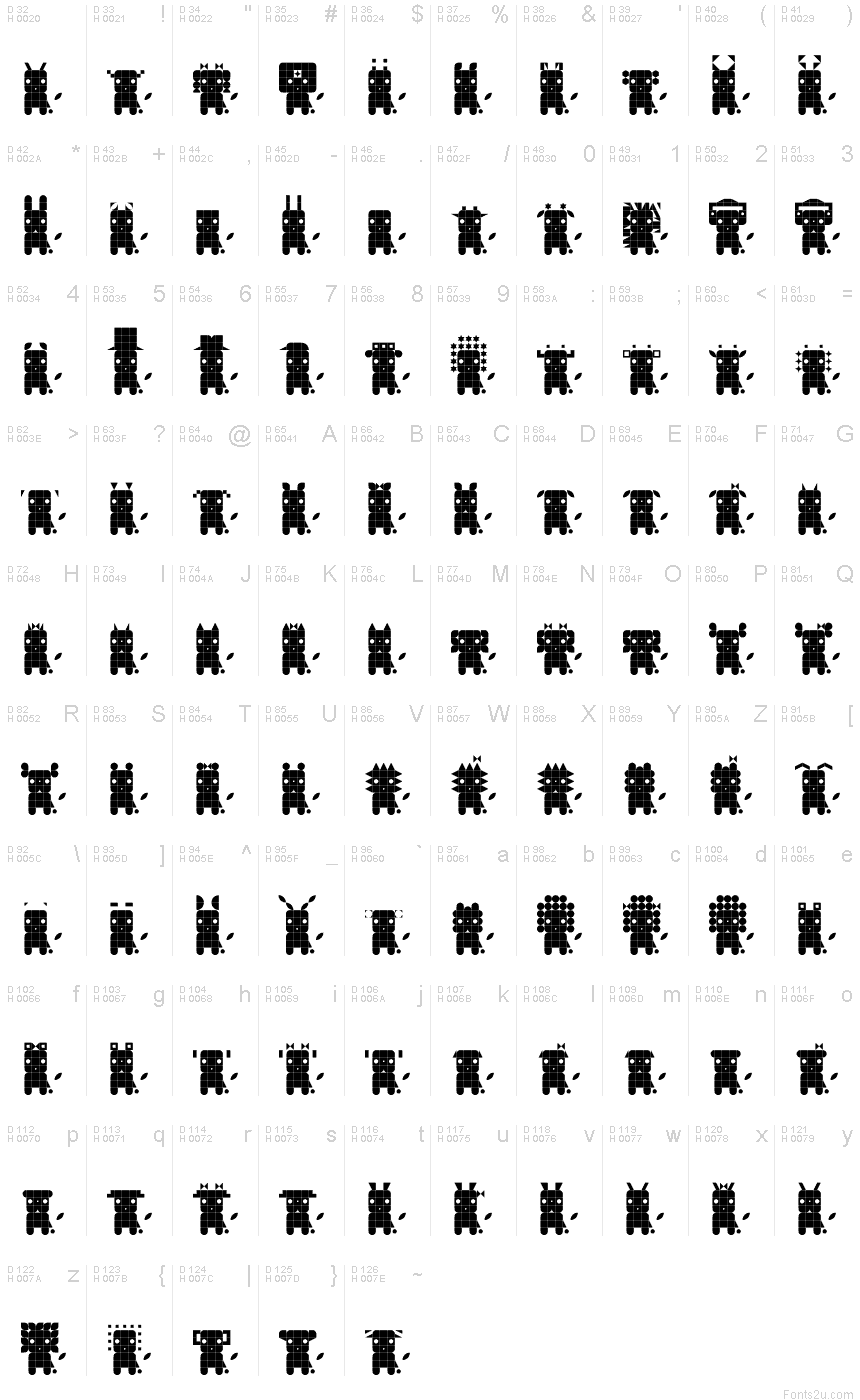
Puppy by momonga of FontStruct is a free cartoon dingbat font built from chunky, grid-like animal figures. The compact puppies share squared bodies, simple dot eyes, patchwork divisions, and small tails, with changing ears and facial markings giving each icon a distinct expression.
Children's game graphics are its clearest use, since the block-built dogs resemble friendly characters or collectible pieces. It also suits toy packaging, stickers, and classroom materials. Rather than serving as neutral lettering, each symbol can become a mascot badge or a small illustrated character within the project.